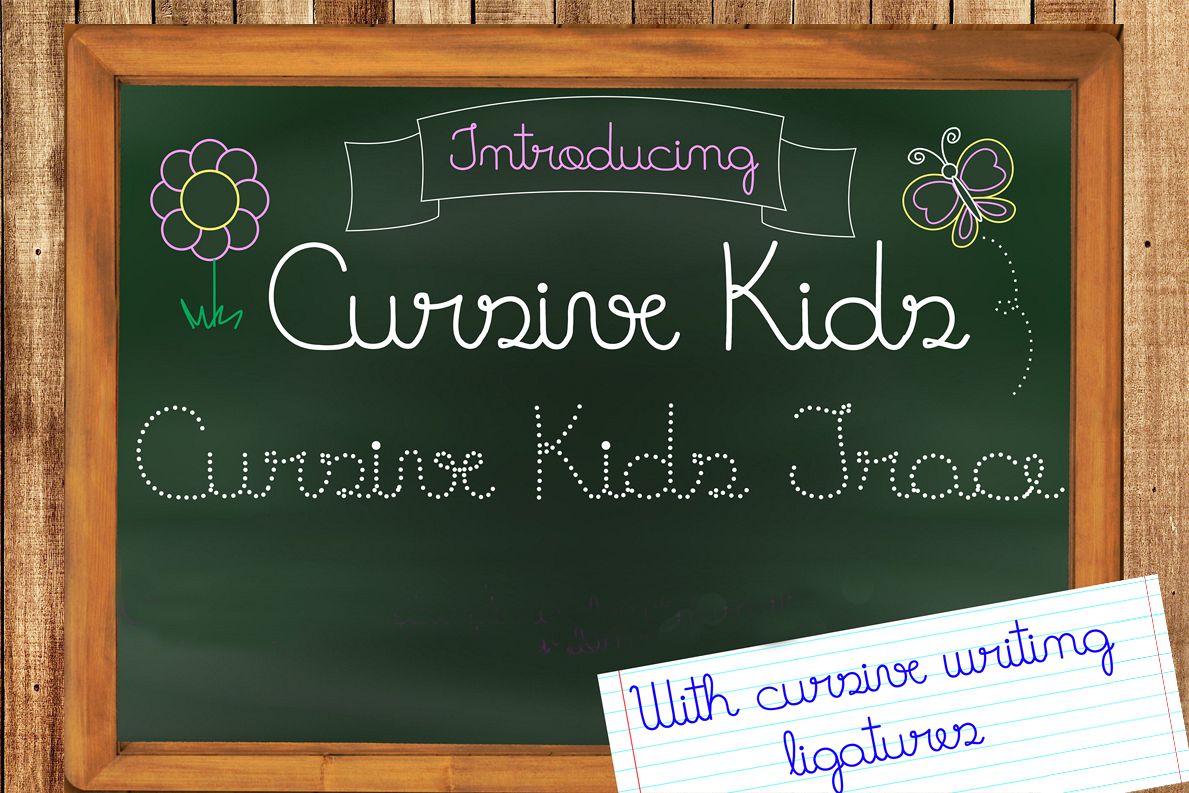
Fonts Cursive Kids and Cursive Kids Trace
Beautiful family of cursive and dotted fonts. Ideal for literacy activities, books, brochures, web design, logos and more.
Give a touch of delicacy and creativity to your work!
Linda família de fontes cursiva e pontilhada. Ideal para atividades de alfabetização, livros, folhetos, web design, logotipos e muito mais.
Dê um toque de delicadeza e criatividade ao seu trabalho!
Note: This font contains approximately 30 ligatures, which can be accessed through most design programs.